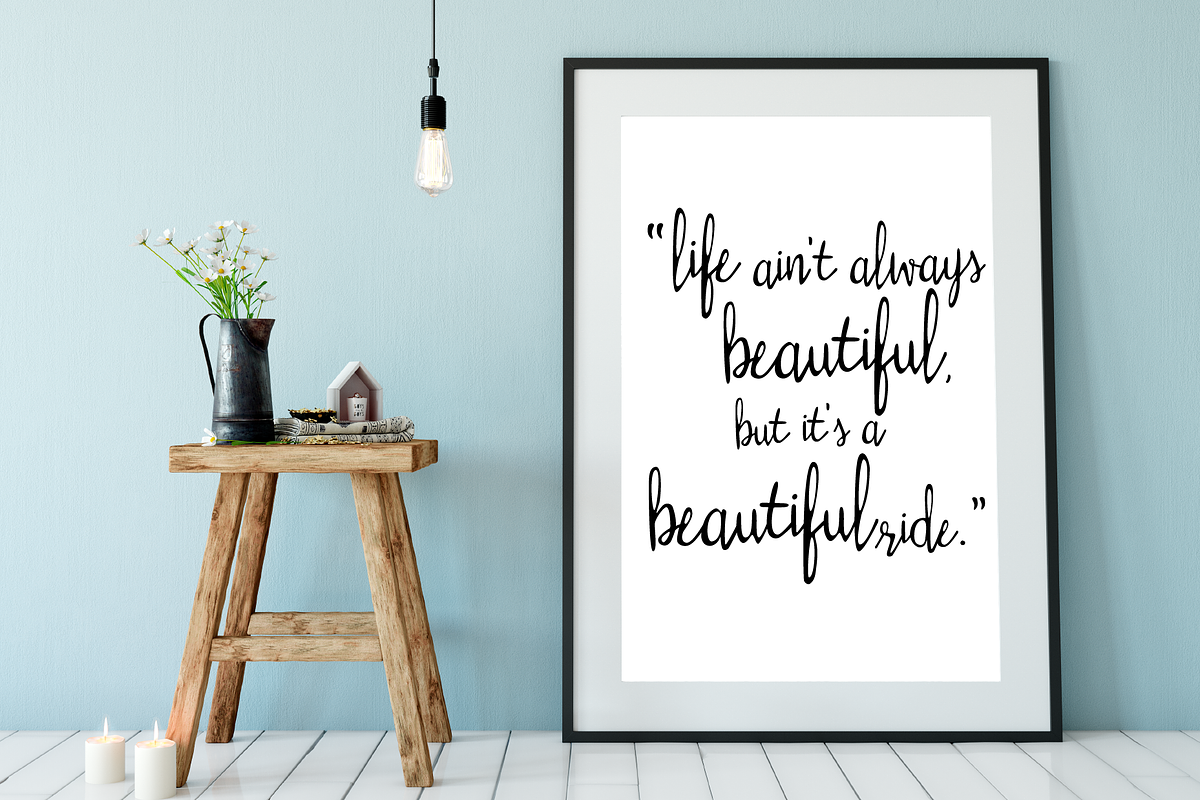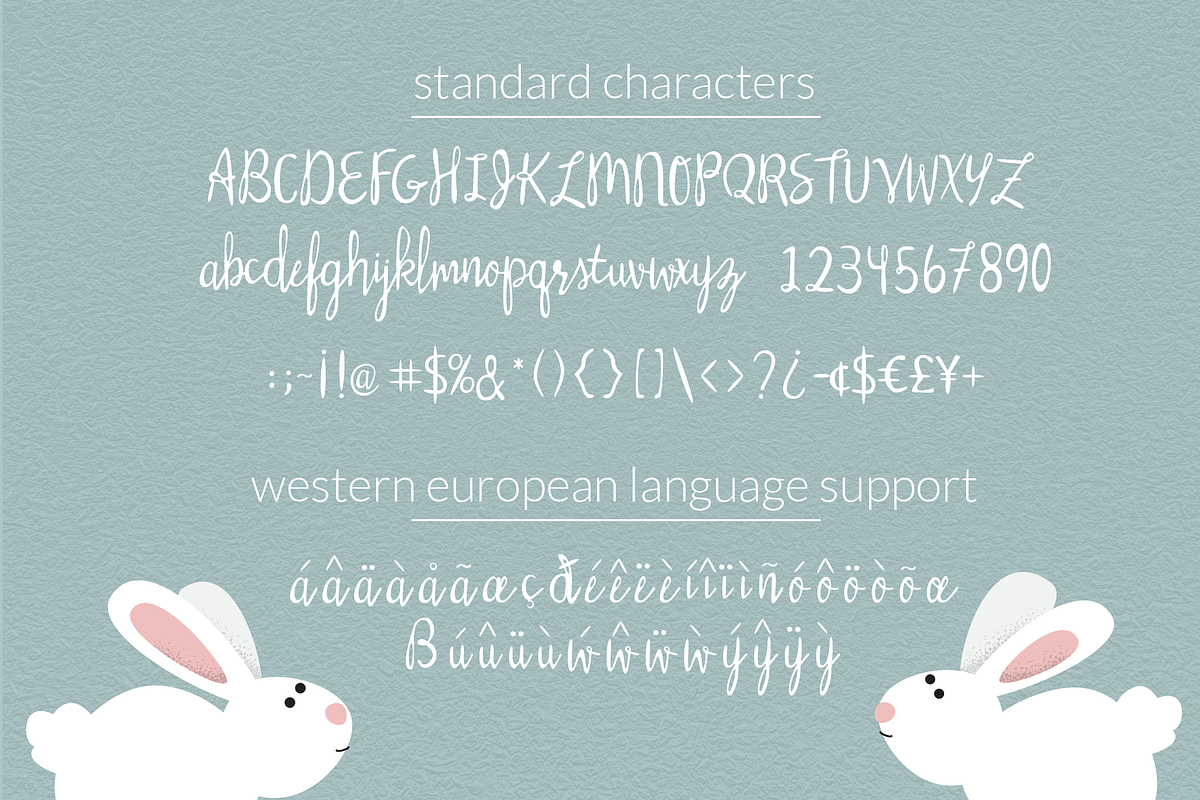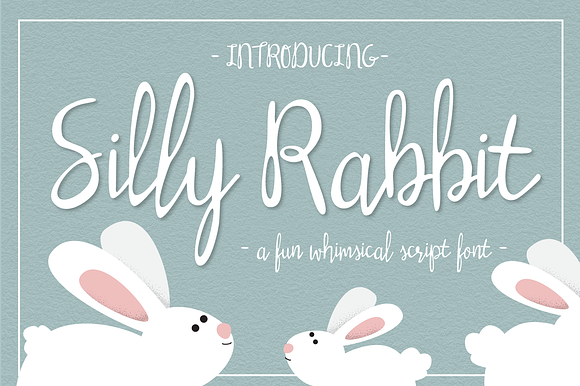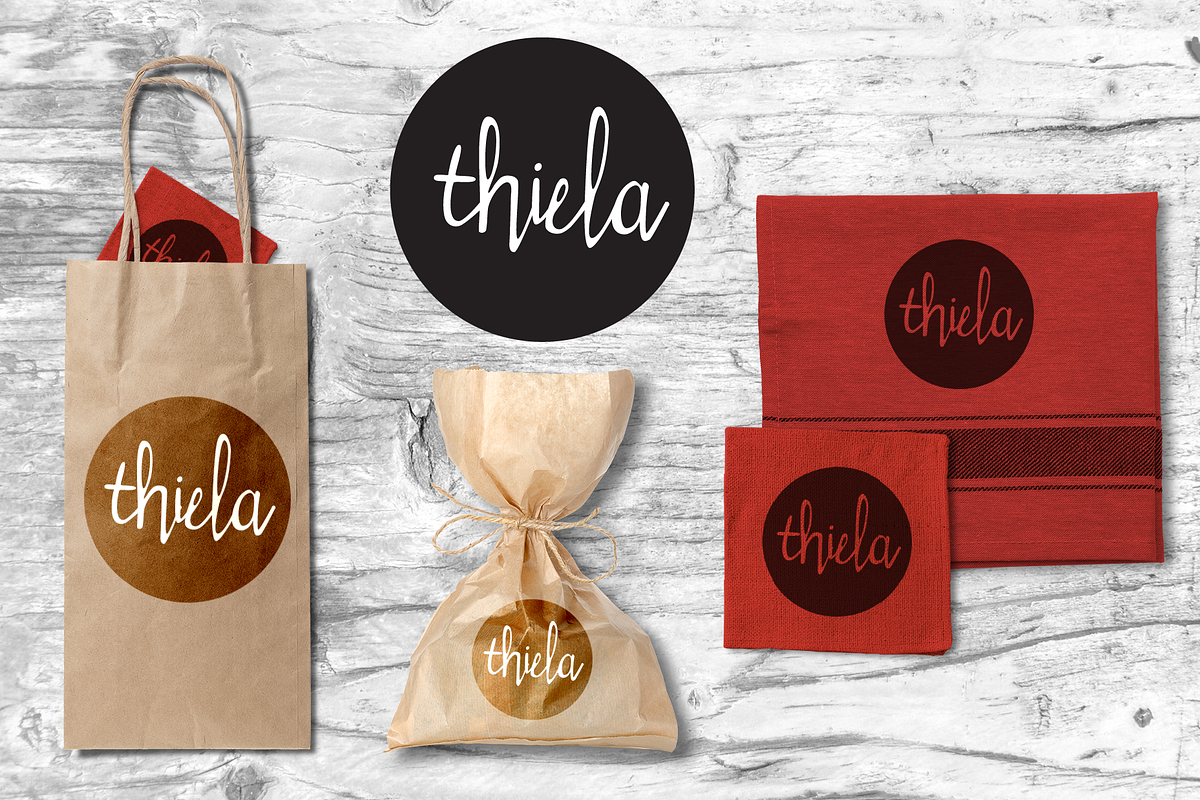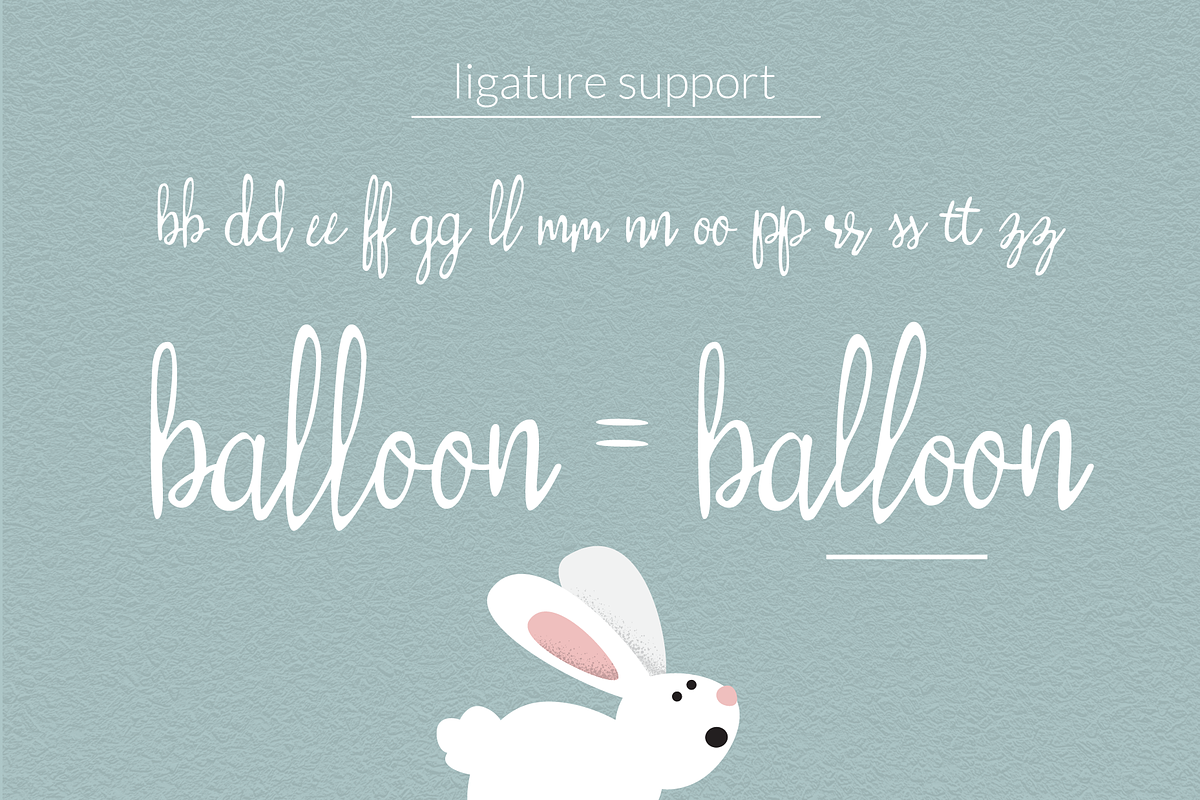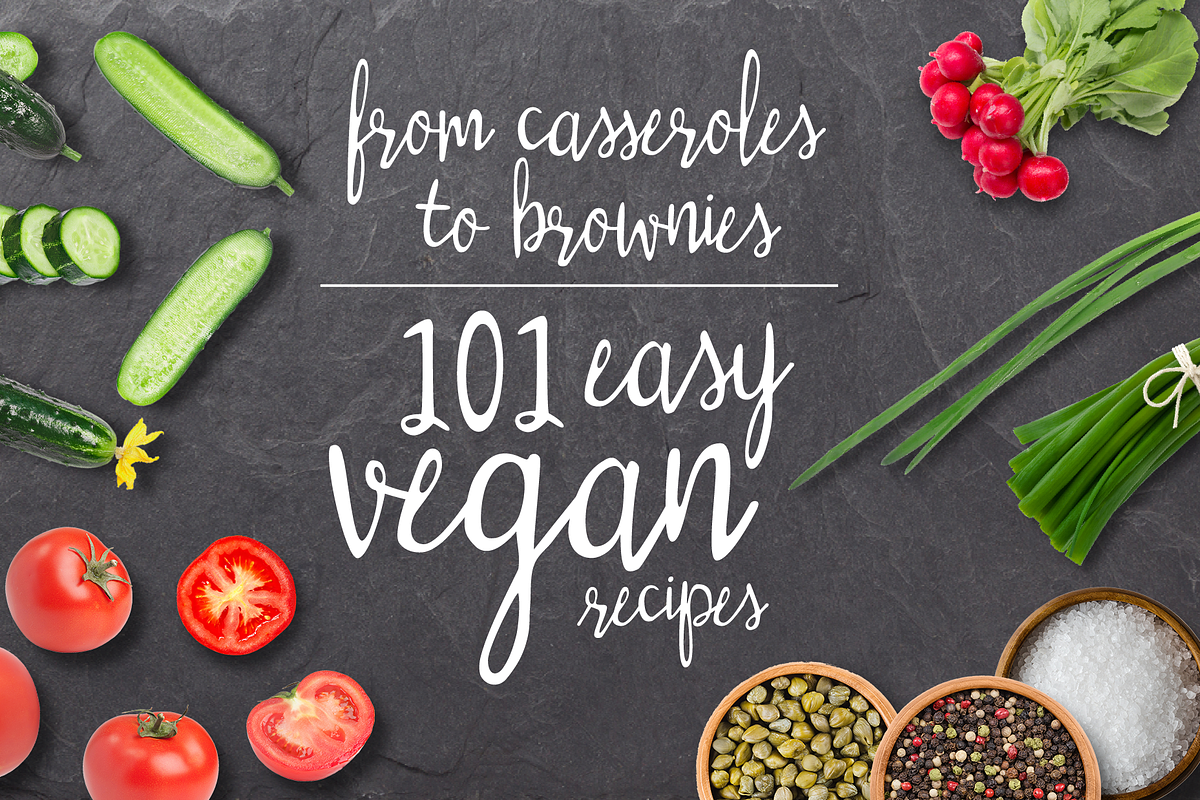
Silly Rabbit Script Font
Introducing Silly Rabbit! A fun and cheerful hand-drawn font, perfect for a professional or craft project that needs some character and personality.
Silly Rabbit Script Font by Tu Neuwin fits naturally into Branding, posters, packaging, typography.